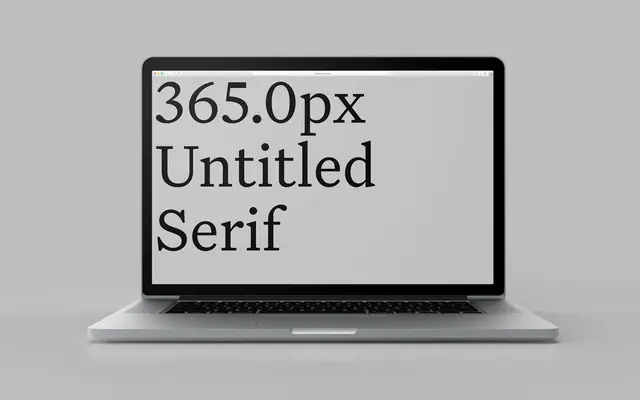
Untitled Serif
Klim Type Foundry · Kris Sowersby · 2017
A quotidian old-style serif drawn from post-Caslon metal workhorses, paired by concept with Untitled Sans for plain, readable text.
An old-style serif by Kris Sowersby drawn from the post-Caslon, pre-Times workhorses that nearly every metal foundry once offered, then quietened in the spirit of Morrison and Fukasawa's Super Normal. Three weights (Regular, Medium, Bold) with italics keep the family lean, and a variable weight axis is supplied with the full family. Pairs by concept with Untitled Sans, and works for editorial body, books and brands that want a serif with no obvious authorial signature.
Klim classifies it as Modern: Garalde/Oldstyle; drawn from the post-Caslon, pre-Times workhorses of metal type, sharing Untitled Sans's Super Normal concept rather than a shared skeleton.